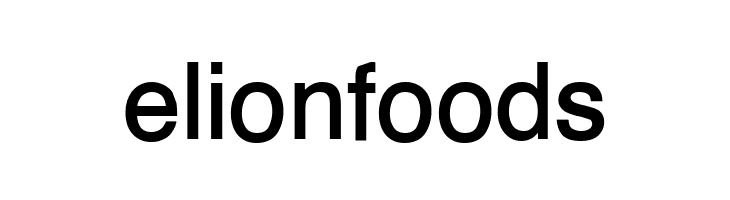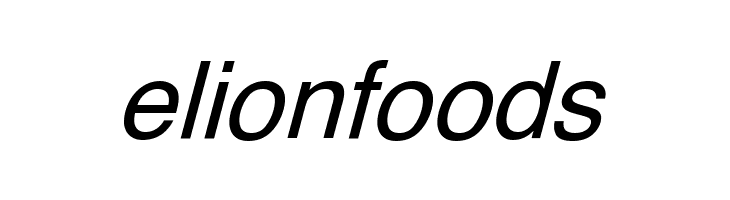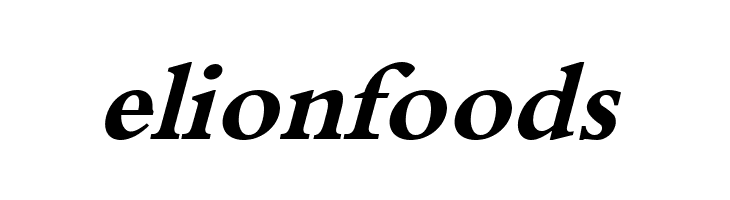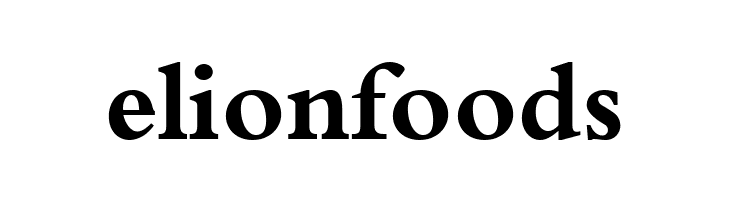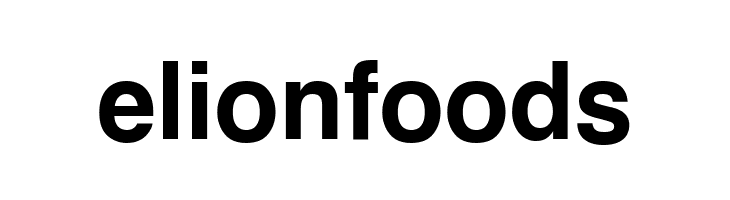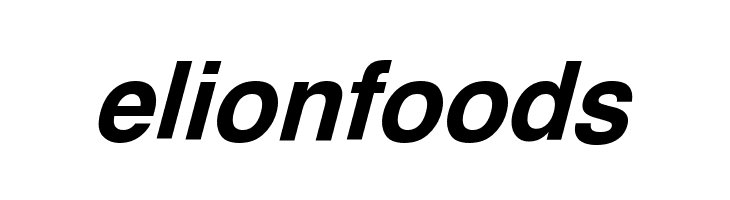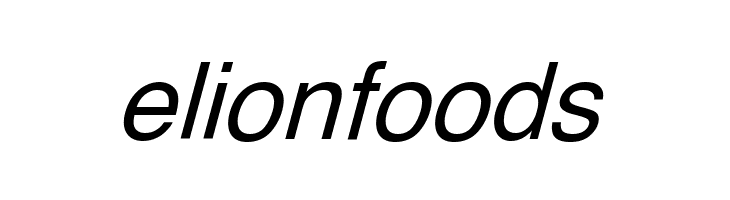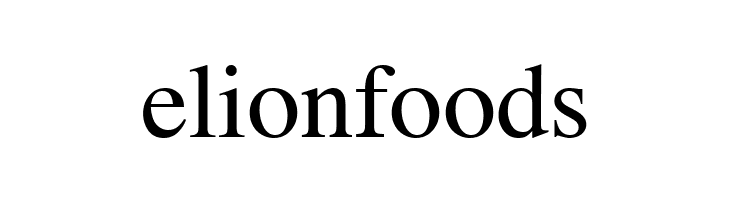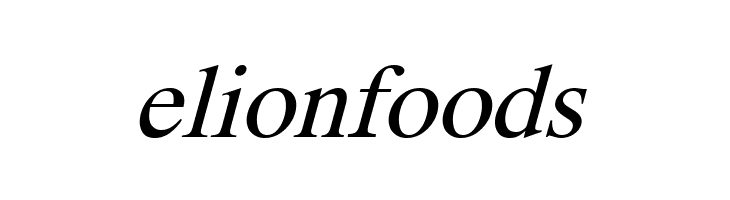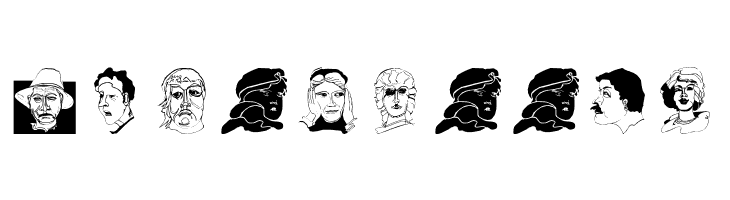
• WrittenFrax
A bold, ornate blackletter font with intricate, angular strokes.
• WW2 Blackletter HPLHS
• WW2 BlackltrAlt HPLHS
A bold, gothic Blackletter font with intricate, medieval-style details.
• WW2Blackletter HPLHS
An intricate blackletter font with a medieval, gothic style.
• WW2BlackletterHPLHS
An ornate blackletter font with gothic, medieval influences.
• WYSIWYG
A display font made up of illustrated human faces for each character.
• WysiwygBats
A whimsical collection of artistic symbols featuring eyes and abstract shapes.
• Xaficule Oddtype
• XamStern
A highly stylized, abstract font with sharp, angular lines and a chaotic aesthetic.
• XB Shafigh
A modern, clean sans-serif font with excellent legibility and balance.
• XB Shafigh Bold
A bold, modern sans-serif font with clean lines and uniform stroke width.
• XB Shafigh Bold Italic
A bold, italicized font with thick strokes and a dynamic appearance.
• XB Shafigh Italic
A sleek, modern italic font with consistent stroke width and elegant slant.
• XB Shafigh Kurd
A clean, modern sans-serif font with uniform stroke width and balanced spacing.
• XB Shafigh Kurd Bold
A bold, modern sans-serif typeface with clean lines and uniform stroke width.
• XB Shafigh Kurd Bold Italic
A bold, italicized font with strong, dynamic strokes and a modern appeal.
• XB Shafigh Kurd Italic
A modern italic font with smooth curves and a dynamic slant.
• XB Tabriz
A classic serif font with elegant strokes and refined proportions.
• XB Tabriz Bold
A bold, classic serif font with strong strokes and elegant curves.
• XB Tabriz Bold Italic
A bold, italic serif font with strong strokes and elegant slant.